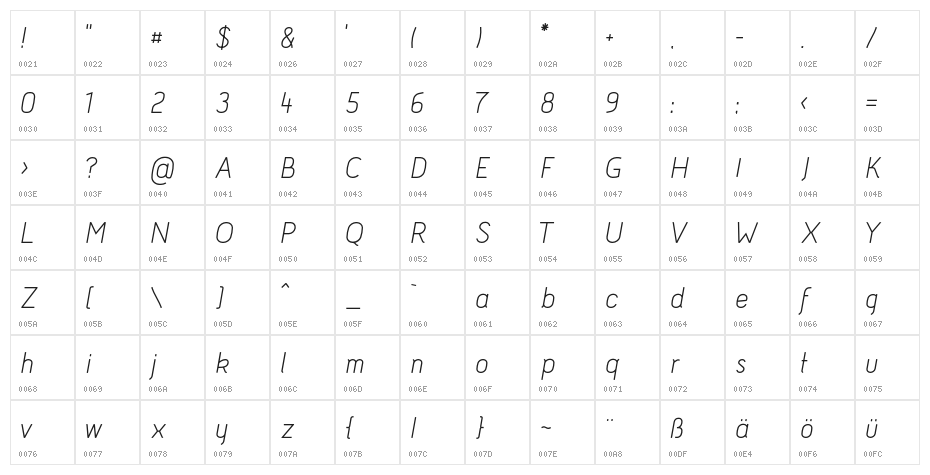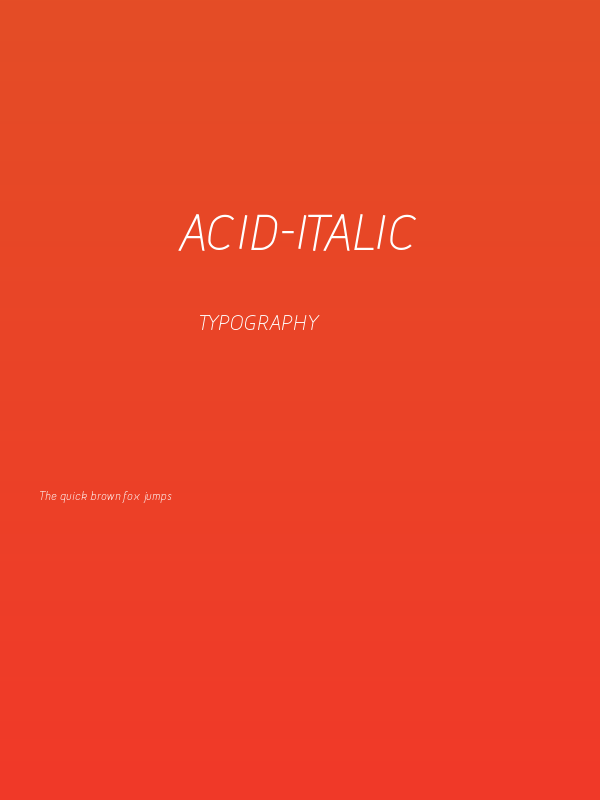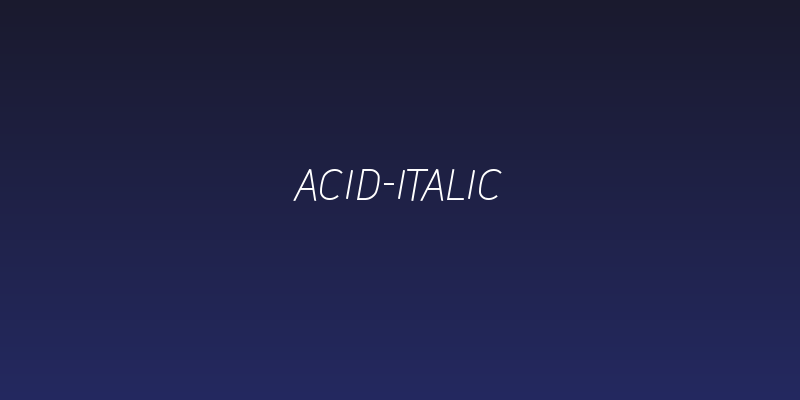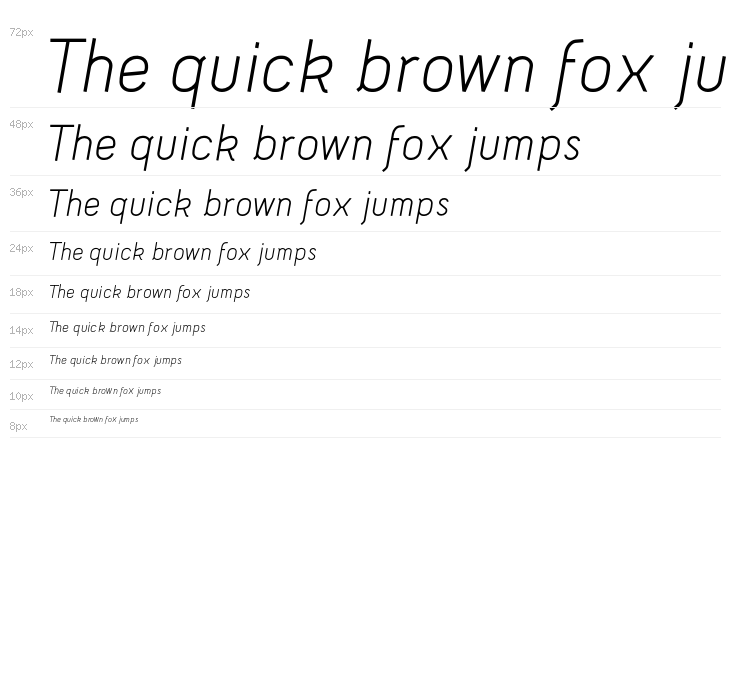
Acid-Italic Font
Acid-Italic Description
This font features a sleek and modern italic style with clean, smooth lines and a slight slant that adds a dynamic feel. The characters are well-proportioned, with a consistent stroke width that gives it a uniform appearance. The uppercase letters are tall and elegant, while the lowercase letters maintain a balanced and harmonious look. The numerals are clear and easy to read, making them suitable for various applications. Special characters are included, each designed with the same attention to detail and style consistency. This font's overall aesthetic is contemporary and versatile, making it suitable for a wide range of design projects.
| Proposed Projects | Ideal for branding, editorial design, advertising, and digital interfaces. |